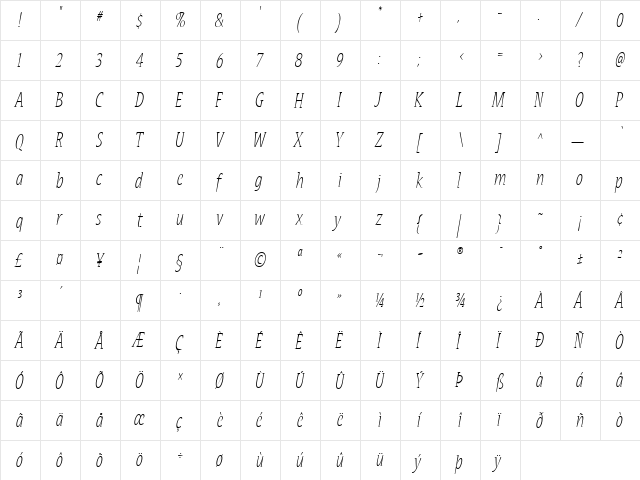
NuevaMM It Font Preview
NuevaMM It
Design Context for NuevaMM Typeface
NuevaMM takes a measured approach to typography — its balanced proportions and neutral character make it a reliable workhorse for both digital and print work.